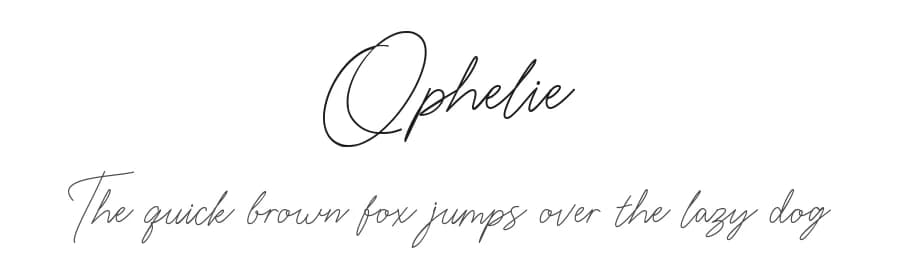
About Ophelie Font
Ophelie Specifications
| Font Family | Ophelie |
| Full Name | Ophelie |
| Glyph Count | 218 glyphs |
| PostScript Name | Ophelie |
| Designer | Rivo Dwi Adriansyah |
Ophelie supports 215 languages.
Ophelie Font is a script font that shines as a display or heading face. Pair it with a clean sans-serif or serif font for body text β the contrast creates a clear hierarchy while the two styles stay balanced and easy to read.
Ophelie Font